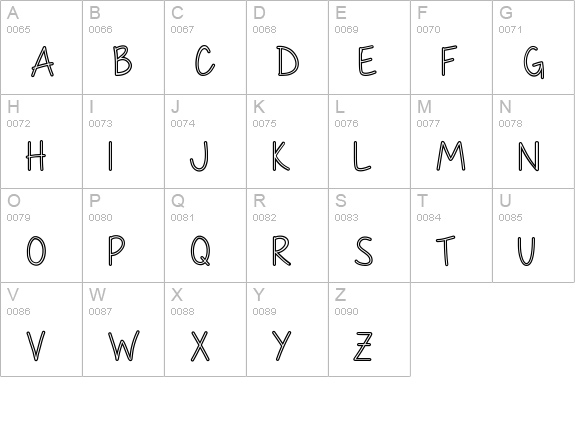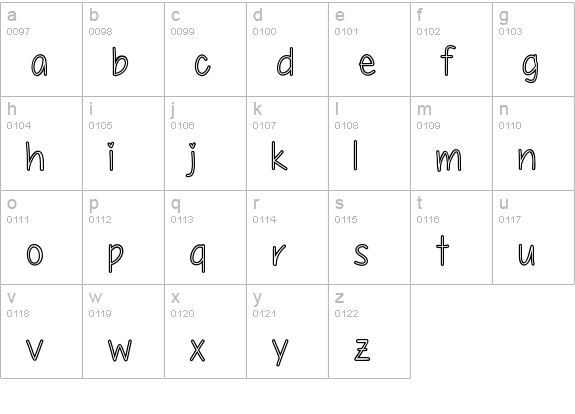
MyFirstCrush Font Details
Introducing MyFirstCrush, a whimsical and enchanting font that will transport you back to those sweet and innocent moments of your first crush. This delightful typeface captures the essence of young love with its playful curves and romantic letterforms. MyFirstCrush is the perfect choice for any project that requires a touch of nostalgia and a dash of innocence. Whether you're designing a greeting card, a children's book, or simply want to add a bit of charm to your personal blog, this font will surely make your words come alive. What's even better is that MyFirstCrush is freely available to download at FontsMarket.com. Yes, you heard it right! This captivating font can be yours without spending a dime. So go ahead and bring a touch of magic to your designs with MyFirstCrush, the free font that will make your heart skip a beat.